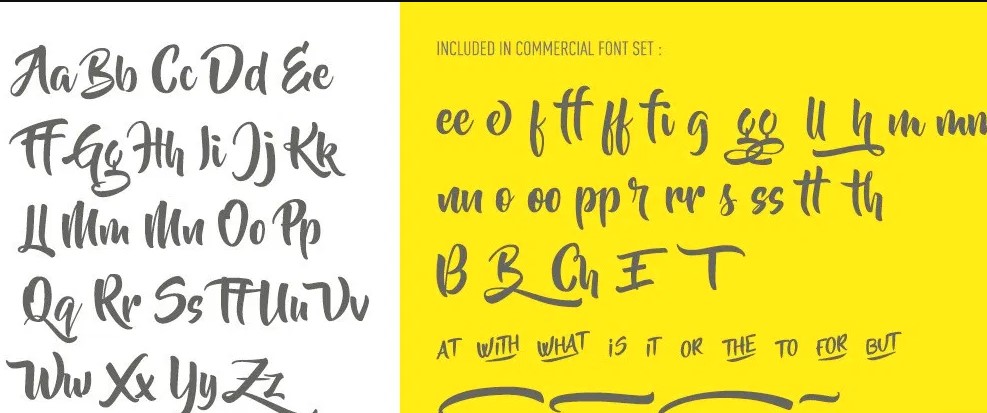
The font we are showcasing is highly favored by seasoned graphic designers and can create captivating and visually appealing designs. You can incorporate Beyond The Mountains Font into both small and large projects. This font features stunning glyphs, swashes, and ligatures that will add intrigue and style to your work.
Here we provide an image which includes the characters and letters of this beautiful, you can perceives it by viewing on the image and get an idea how delightful it is.